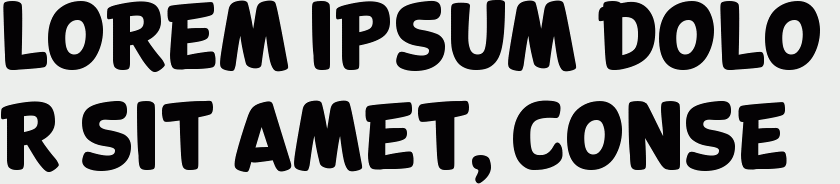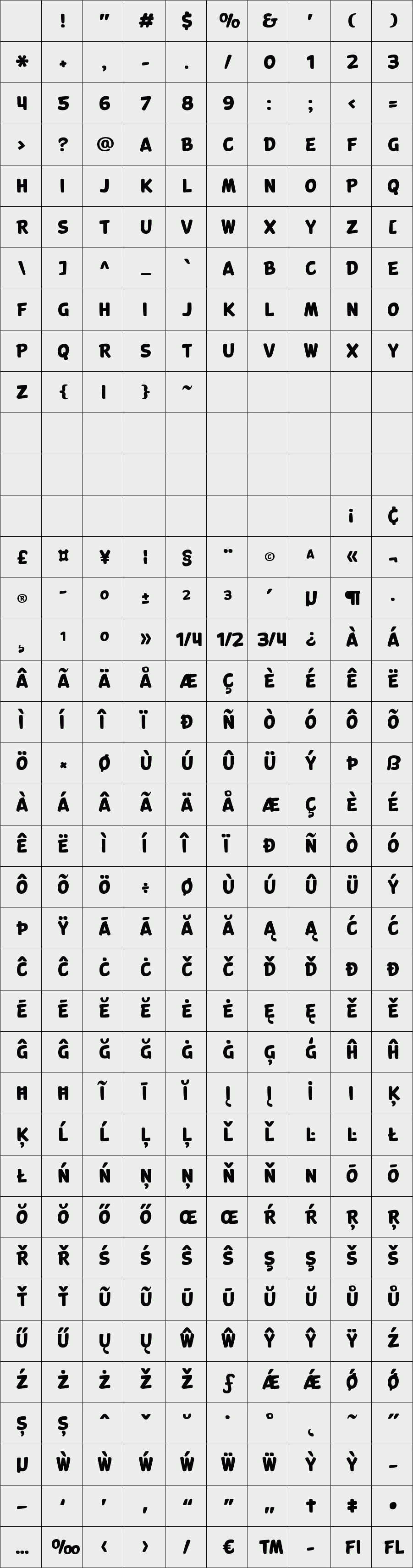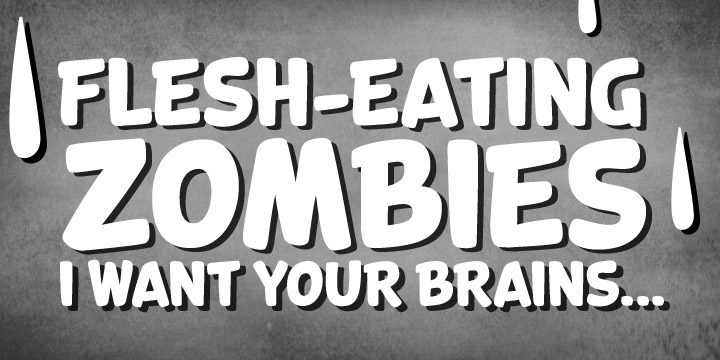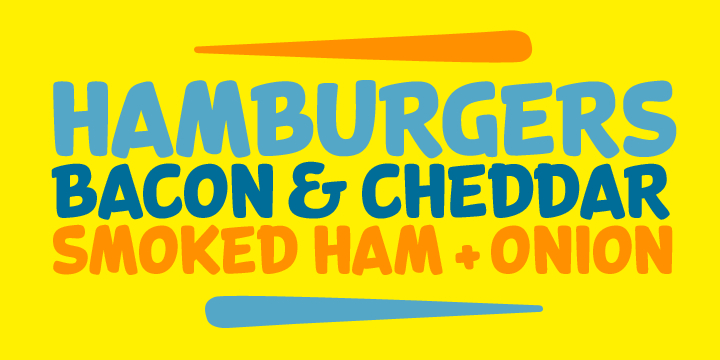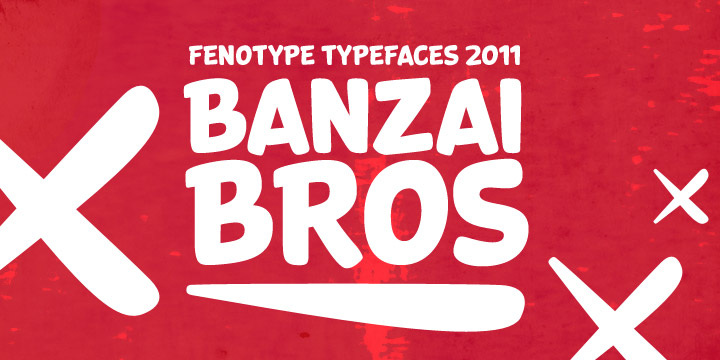
Banzai Bros
Banzai Bros is a deadly efficient multidisciplinary all-caps assault font. It’s highly recommended for posters, signs, flags & banners. Banzai Bros comes with a small set of ornaments.